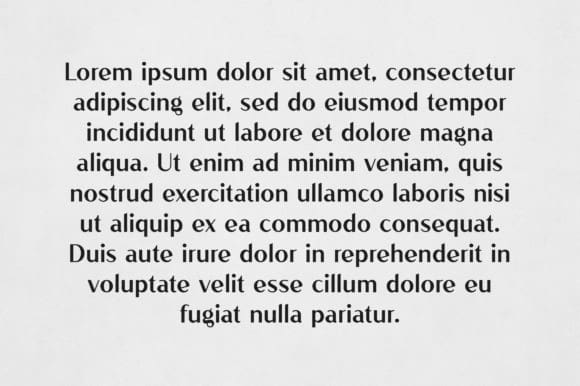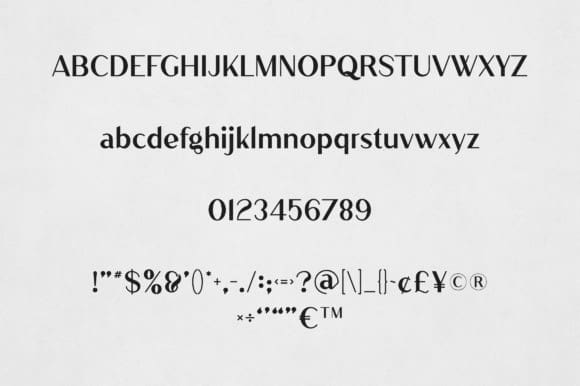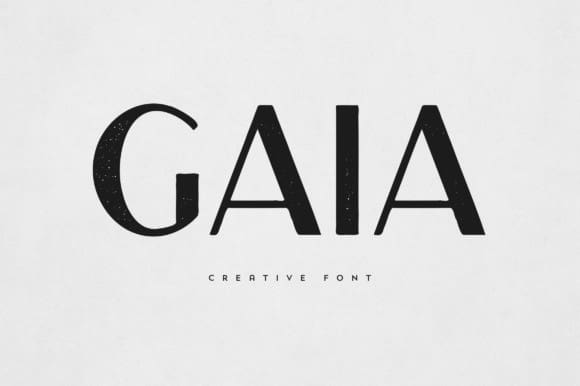
Gaia Font
Gaia Font is an elegant and versatile sans serif font that will make your typography truly unique! It will enchant every logo, branding, headline, or plain text!